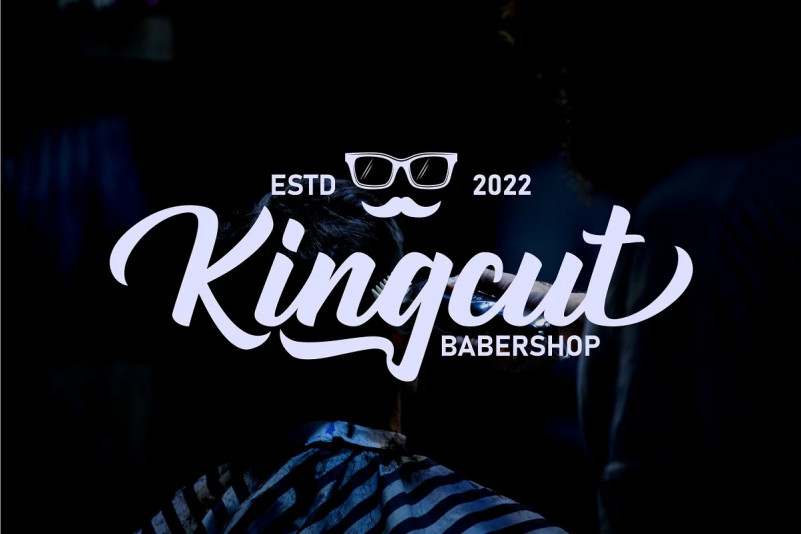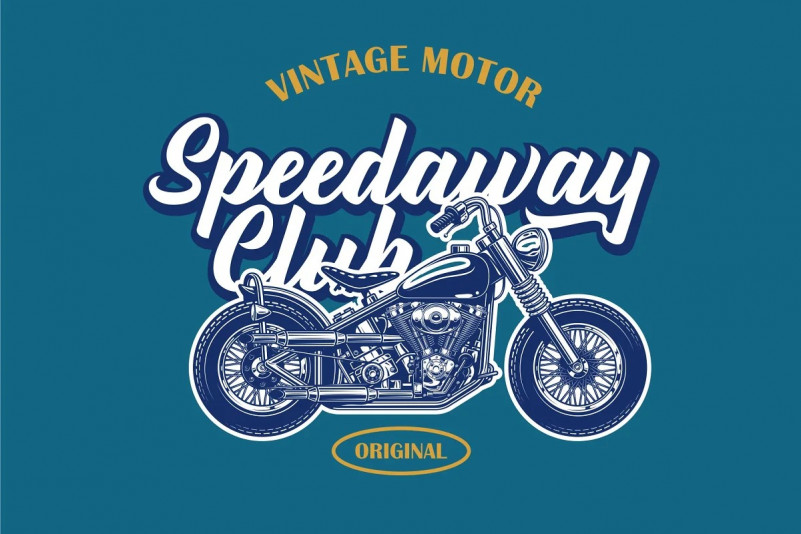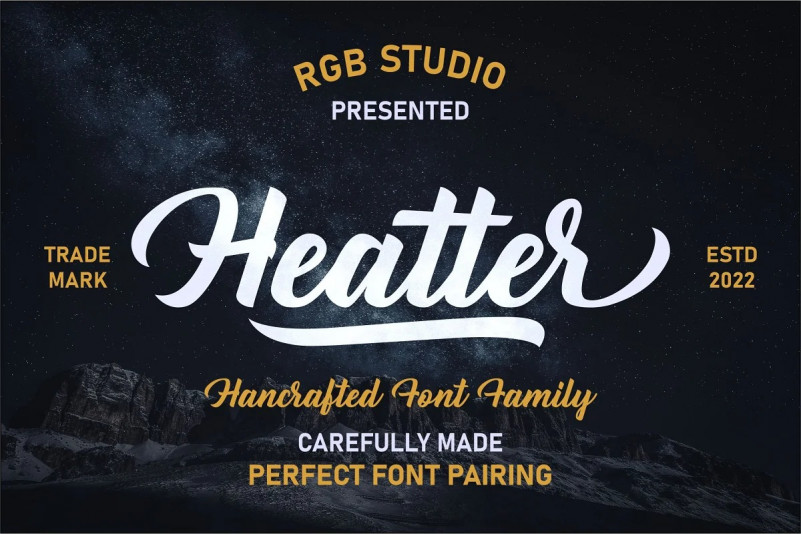
Heatter Font
Heatter Script Font is a retro and beautiful script font. You can use it for various projects, such as blog posts, logos, branding, ads, invitations, greeting cards, planners, photo albums, decorations, and much more.